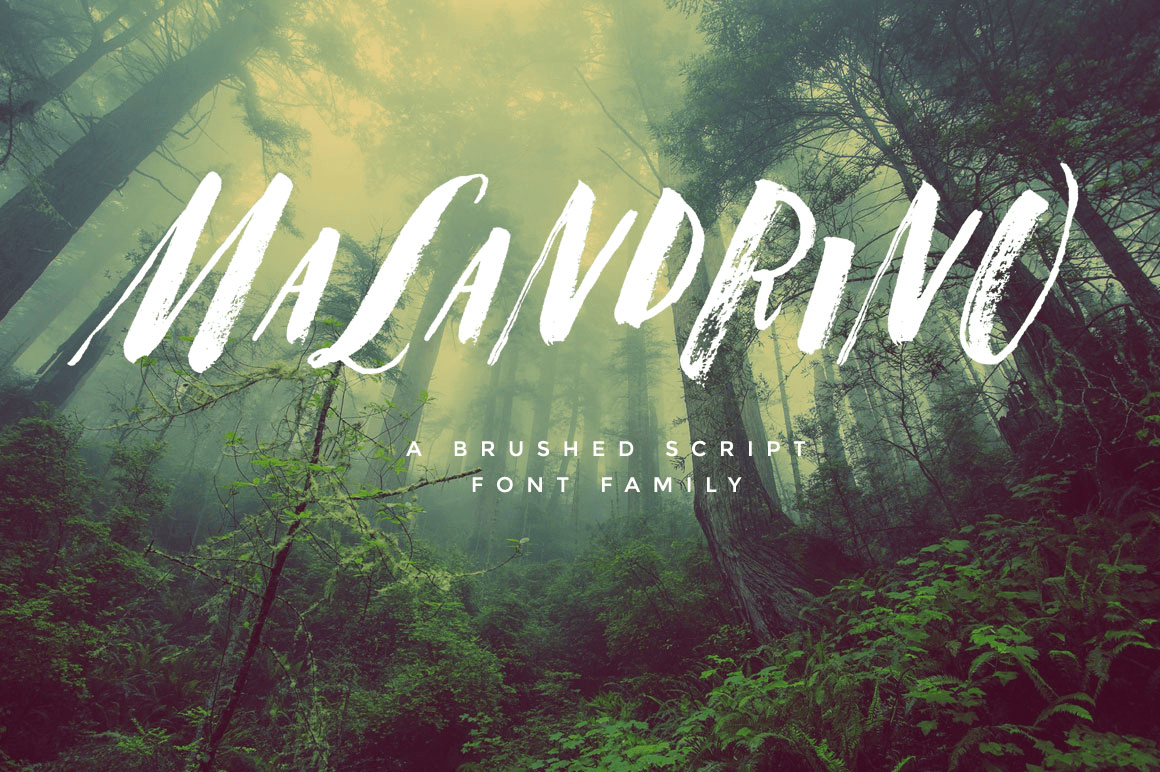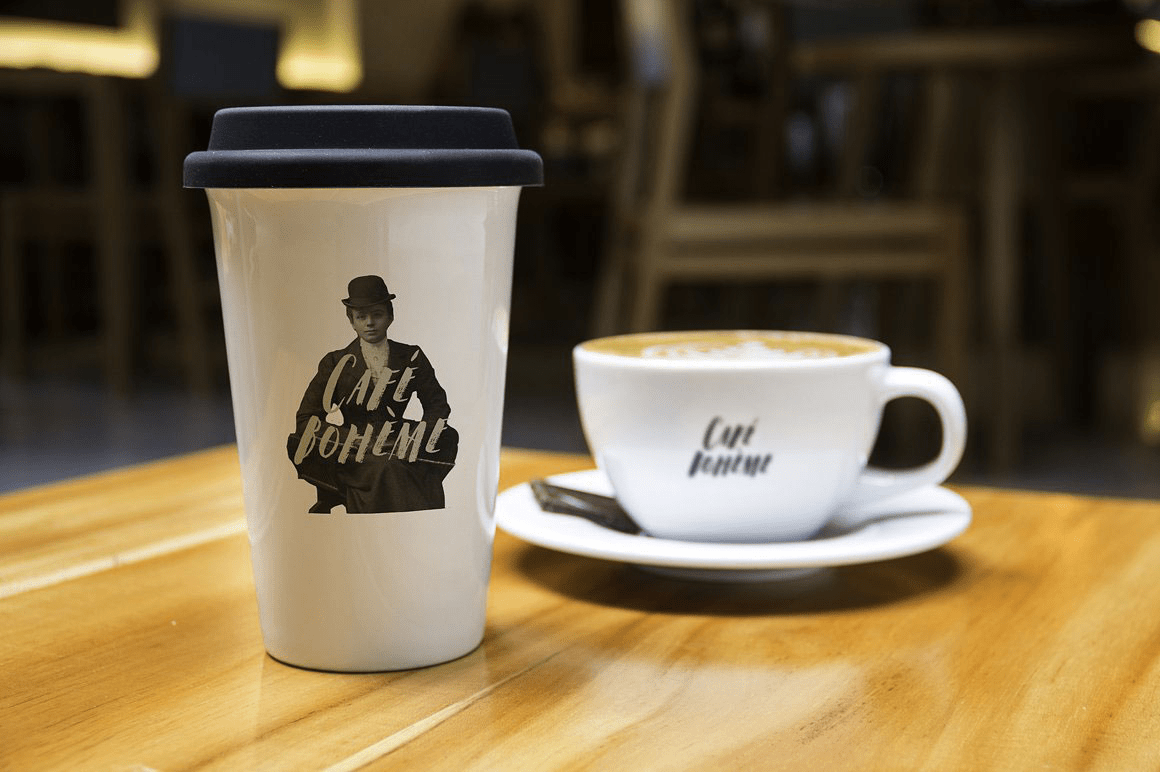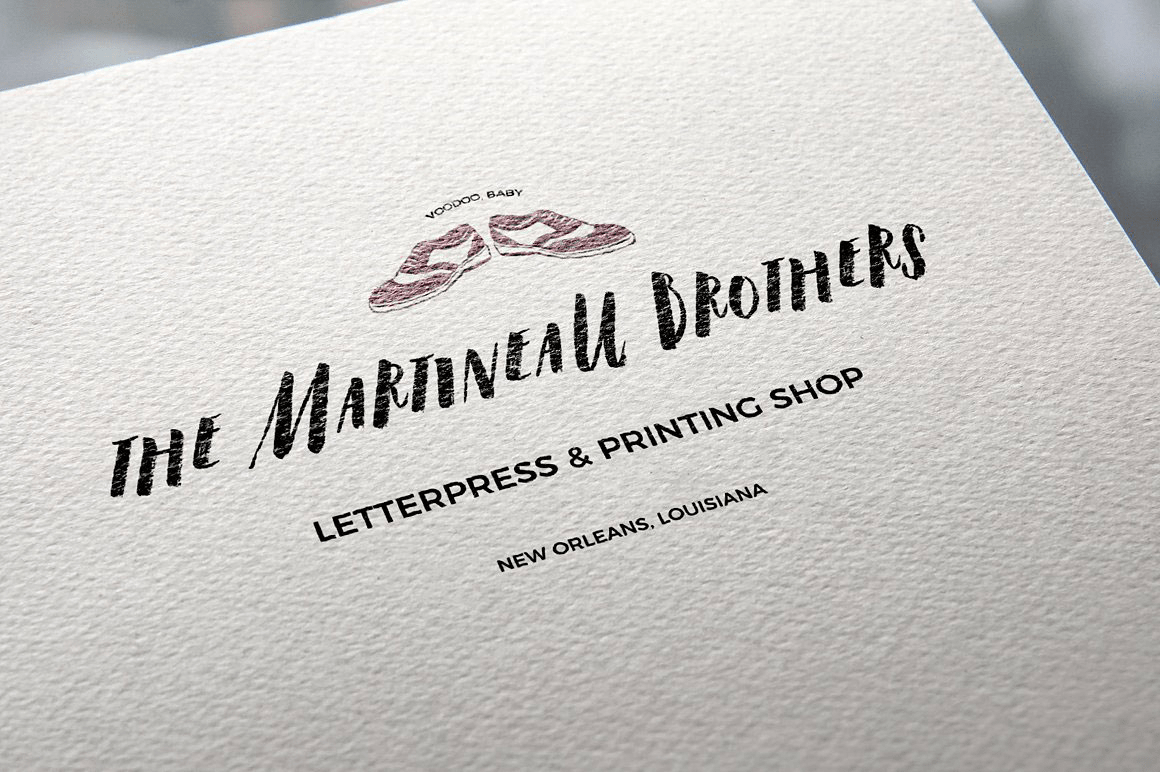
Malandrino
Font Family by Tuccicursive
Inspired by my Grandfather Dominick, "Malandrino" is an Italian word that means 'rascal' or 'rogue' - it's what my Grandmother called my Grandfather with a 'love smack' to the back of his head. This textured brush font has a mischievous charm with expressive word dingbats and a few special inked illustrations with the kind of rough and clever spirit that travels through a highly spirited spontaneous brush script.